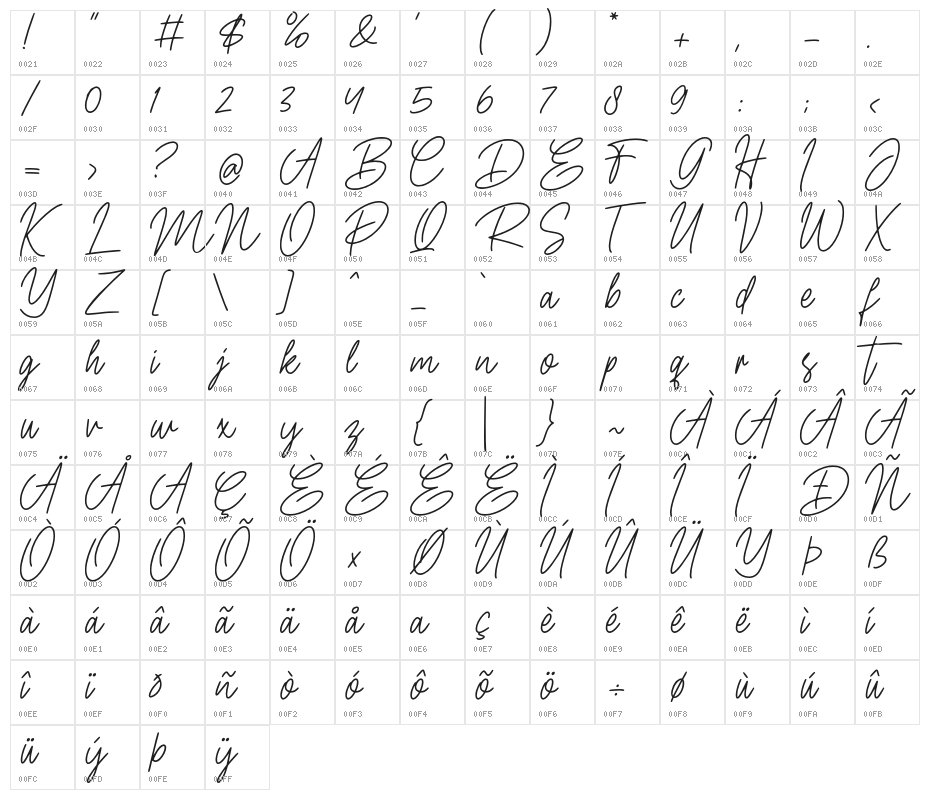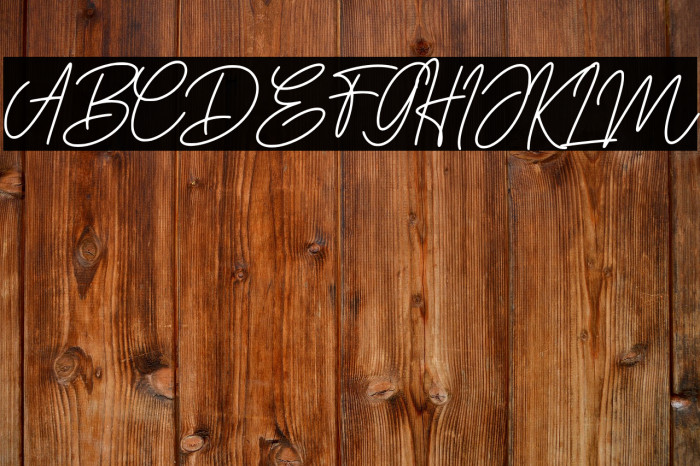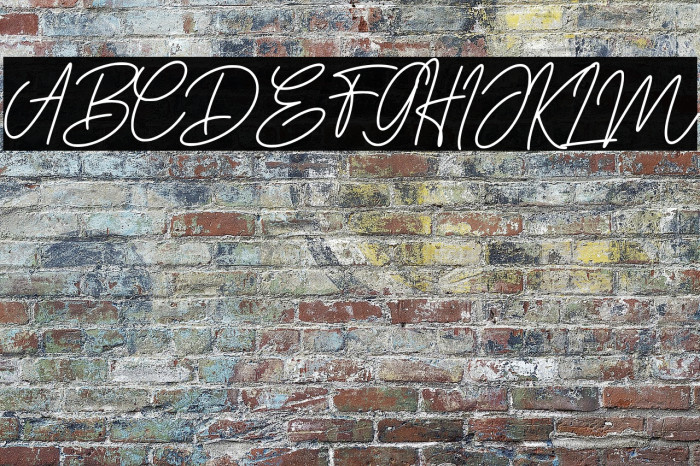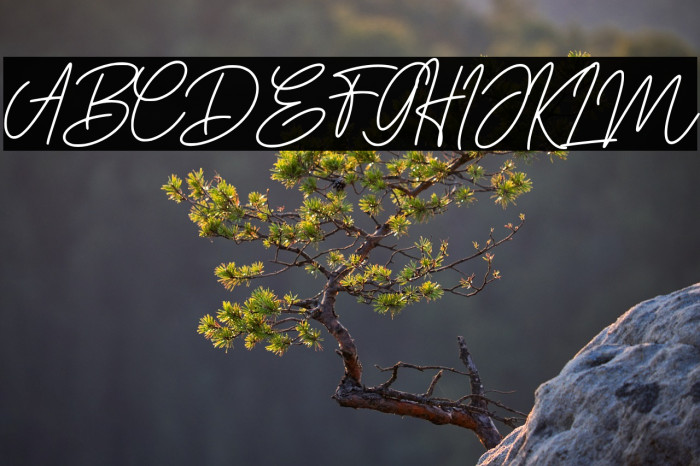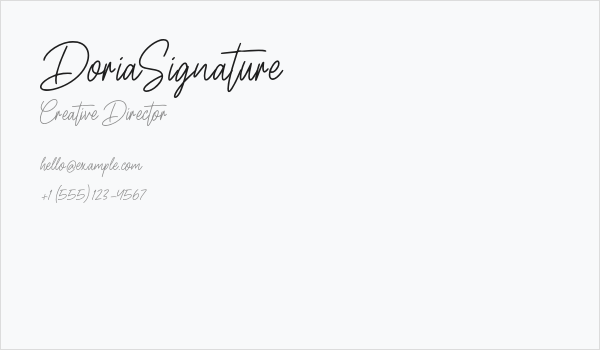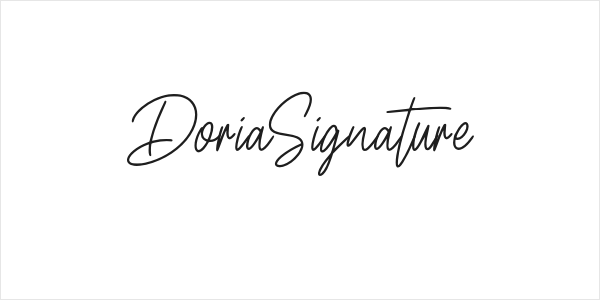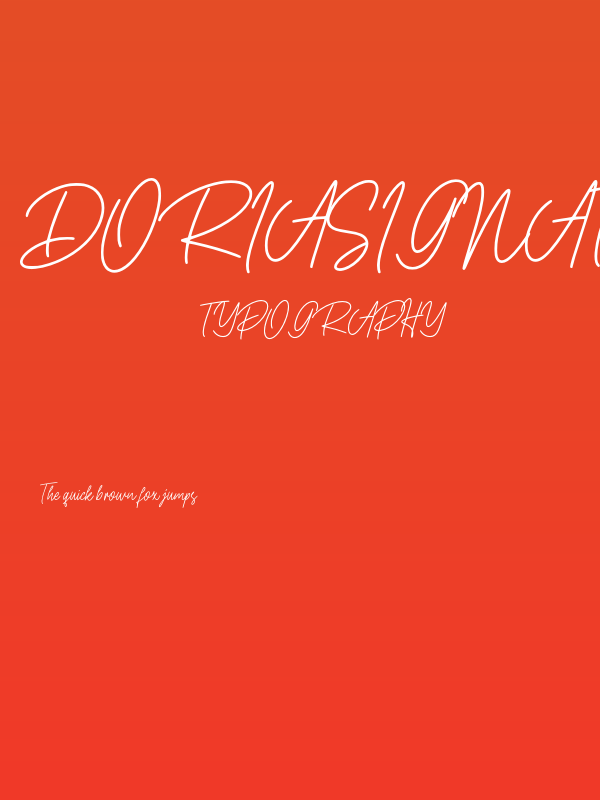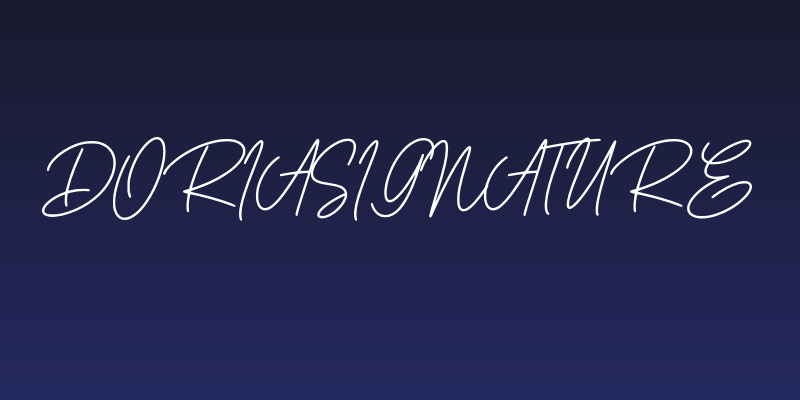
DoriaSignature Font
DoriaSignature Description
This font exudes a sophisticated and elegant handwritten style, characterized by its fluid and continuous strokes that mimic the natural flow of cursive handwriting. The uppercase letters are slightly more structured, while the lowercase letters exhibit a more relaxed and freeform appearance. The numbers and special characters maintain the same fluidity, ensuring consistency throughout. The overall design is both stylish and legible, making it suitable for a variety of creative applications. The font's aesthetic is reminiscent of a personal signature, lending a personal and intimate touch to any project.
| Overall Style | Elegant |
| Use Case | Logos, Invitations, Personal Branding |
| Proposed Projects | Ideal for wedding invitations, personal branding, logos, and elegant stationery. |